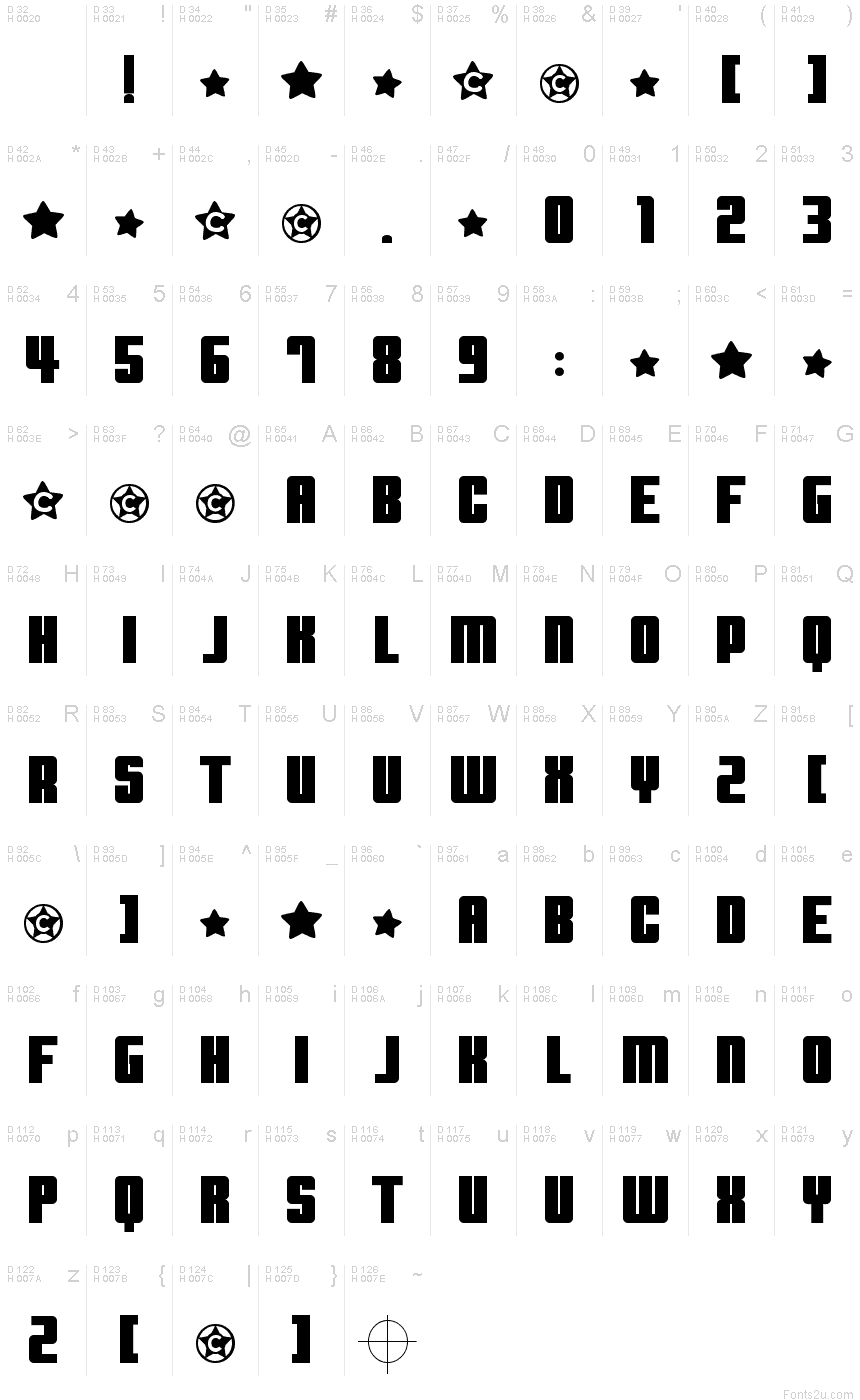
Clearwerkkraftremix
Clearwerkkraftremix font by Brad Barham is a free techno sans serif typeface that feels stamped from steel—tall, ultra-condensed, and carved with sharp vertical notches. Its blocky geometry and tight spacing create a steady, machine-like rhythm that stays legible even when the letters nearly touch, giving headlines a crisp, industrial bite.
Using Clearwerkkraftremix, try it on album covers, club flyers, sci‑fi posters, tech branding, game titles, event banners, and bold social graphics. It shines in short phrases and stacked words; give it breathing room with generous tracking or oversized scale. Pair this free font with a clean neutral sans for body copy to keep the look punchy without turning noisy.